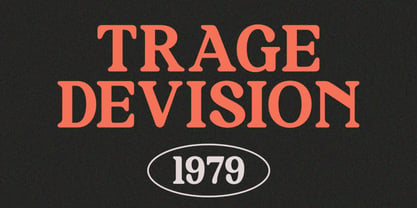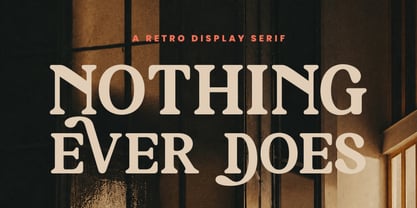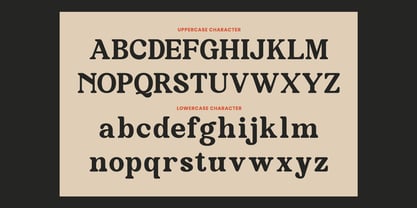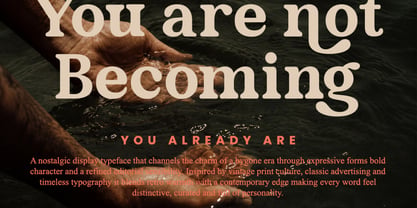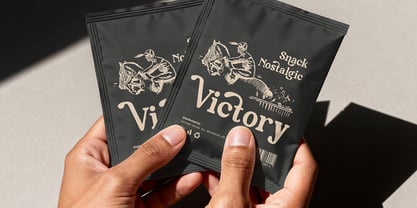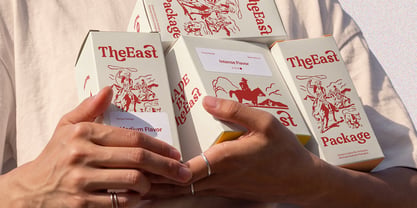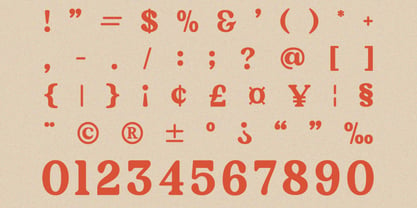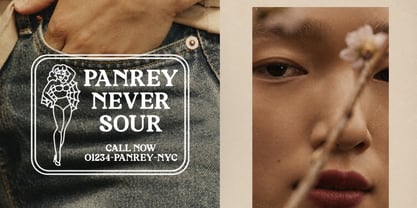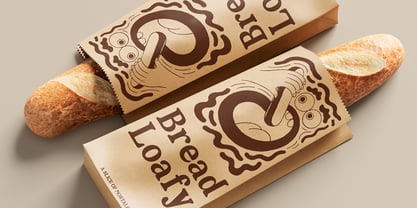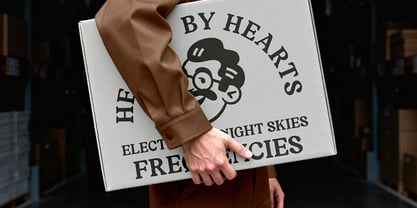
Davenia
Davenia is a bold retro display serif font designed to bring a strong sense of nostalgia, elegance, and expressive personality to modern graphic design. Its distinctive letterforms combine classic serif construction with rounded terminals, soft curves, high-contrast details, and dramatic proportions, creating a typeface that feels both vintage and contemporary. The unusual shapes give Davenia a recognizable visual identity, allowing even short words and simple phrases to become strong graphic elements.
Relevance and Use Case is perfect for retro branding, logo design, vintage posters, editorial layouts, packaging, fashion graphics, apparel designs, merchandise, magazine headlines, advertising artwork, and nostalgic visual identities requiring an elegant yet bold vintage character.